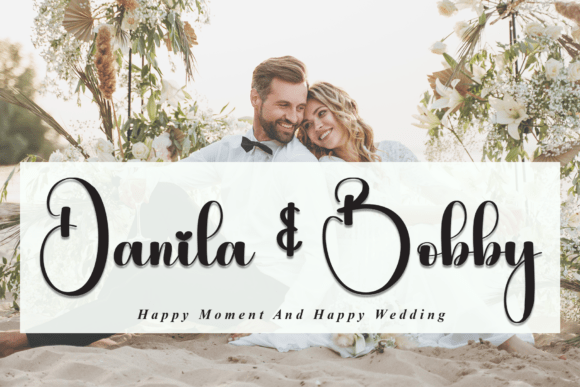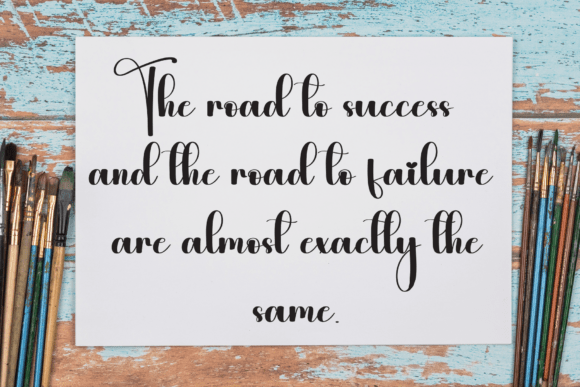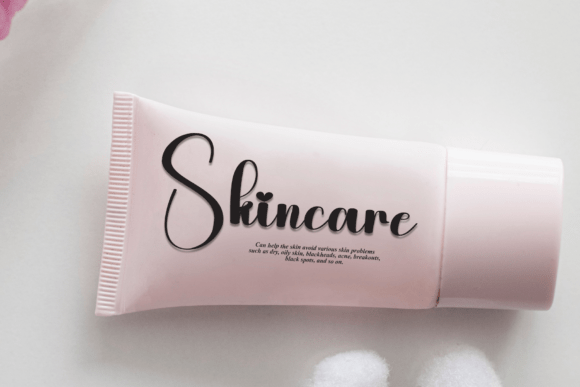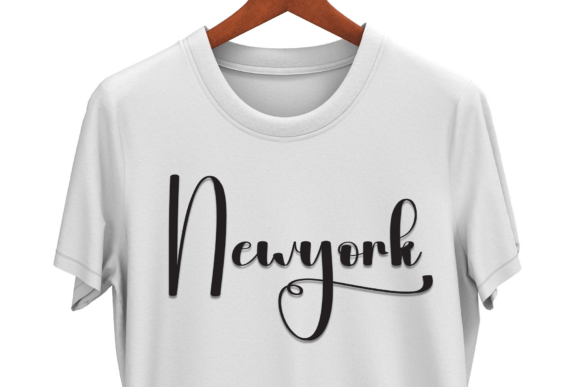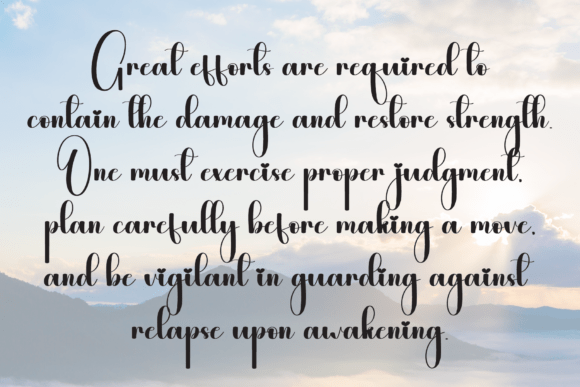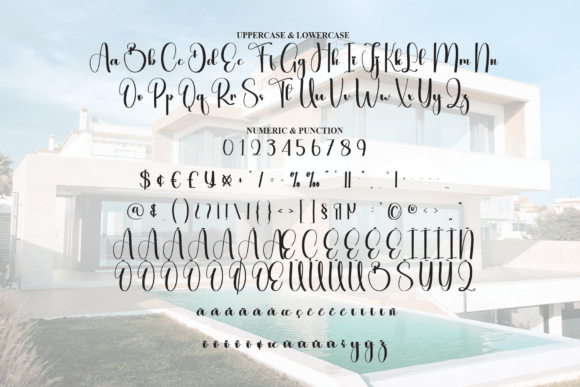
The Perfect Script for Your Masterpiece
As a designer, there’s nothing quite like the thrill of bringing a new project to life. You’ve poured your heart and soul into every detail, and the final result is nothing short of breathtaking. But what sets your design apart from the rest? Is it the way the words flow together, or the subtle nuances that speak directly to your audience?
For many designers, the key to creating a truly unforgettable design lies in the choice of typography. And that’s where the Bighome Font comes in – a stunning handwritten script font that exudes elegance and sophistication. With its smooth, flowing strokes and natural, artistic feel, this typeface is perfect for branding, invitations, and any creative project that demands a personal touch.
Bighome Font Key Features
- Character Set: The font includes a wide range of characters, including Latin, Cyrillic, and Greek alphabets, as well as punctuation and special symbols.
- Unique Characteristics: Bighome Font features a distinctive, modern design with clean lines and a minimalist aesthetic, making it ideal for use in digital and print media.
- Font Style: Bighome Font comes in two styles: Regular and Bold, allowing users to choose the perfect weight for their design needs.
- Scalability: The font is designed to be highly scalable, making it suitable for use in a wide range of applications, from small text to large headings.
Bighome Font Review
Overall, I have mixed feelings about the Bighome Font. There are some aspects that I really enjoy, but there are also some limitations that hold it back.
Unique style: The Bighome Font has a distinctive and eye-catching style that can add a touch of personality to any design.
High-quality glyphs: The font includes a wide range of glyphs, including international characters, which makes it suitable for use in various languages.
Scalability: The font scales well across different sizes and resolutions, making it a good choice for digital design.
Readability issues: At smaller font sizes, the Bighome Font can become difficult to read due to its irregular shapes and tight spacing.
Lack of consistency: The font’s unique style can also make it feel inconsistent in certain contexts, which may affect the overall design.
Overall impression
The Bighome Font is a solid choice for designers who want to add a touch of personality to their designs. However, it may not be the best choice for body text or other situations where readability is crucial. With some careful use and styling, the Bighome Font can be a valuable addition to a designer’s toolkit.
Getting the Most Out of Bighome Font
To get the most out of Bighome Font, use it in combination with bold and italic styles to create visual interest.
Experiment with different font sizes and colors to create a unique visual identity.